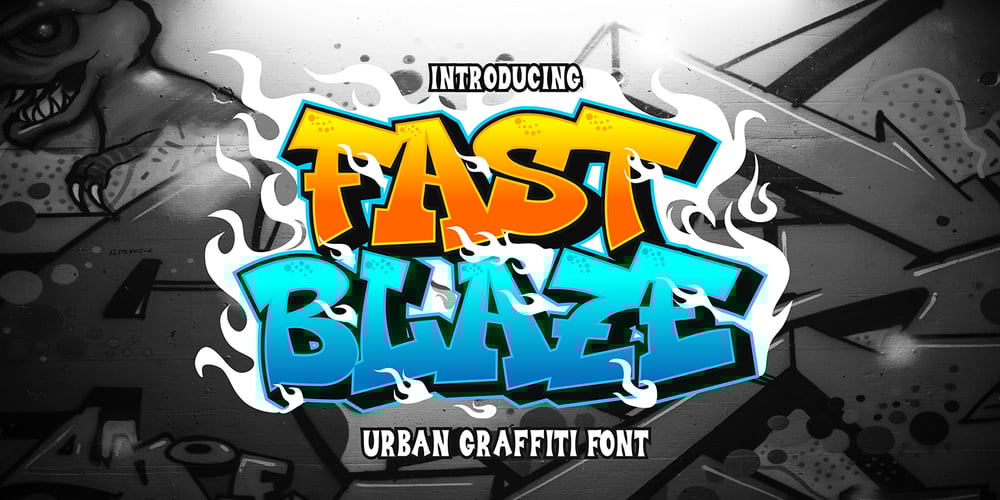
Fast Blaze Graffiti Font Family was designed by Sipanji and published by Sipanji21. Fast Blaze Graffiti contains 1 styles and family package options. “Fast Blaze” is an urban graffiti font characterized by sharp edges and a bold look. Ideal for music posters, apparel designs, shirts, and streetwear, this font brings a touch of edginess to your projects. The unique style of “Fast Blaze” makes it the perfect choice for death metal or urban graffiti themes. Whether you want to create a strong and powerful statement or simply add a touch of attitude to your designs “Fast Blaze” is the font for you.